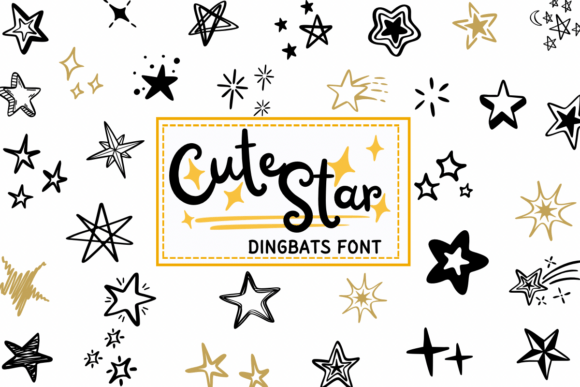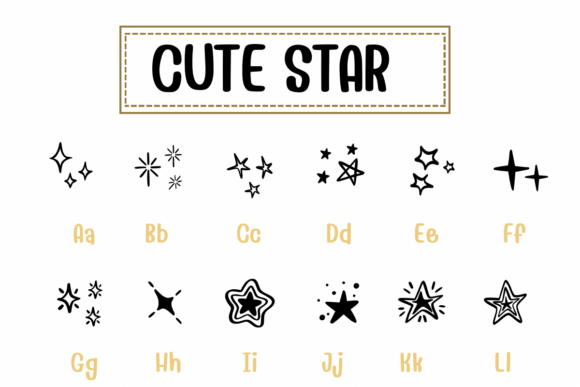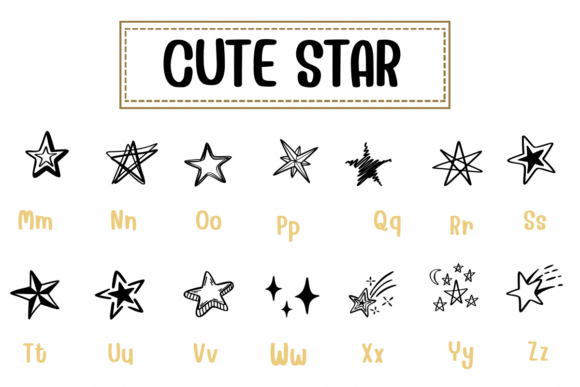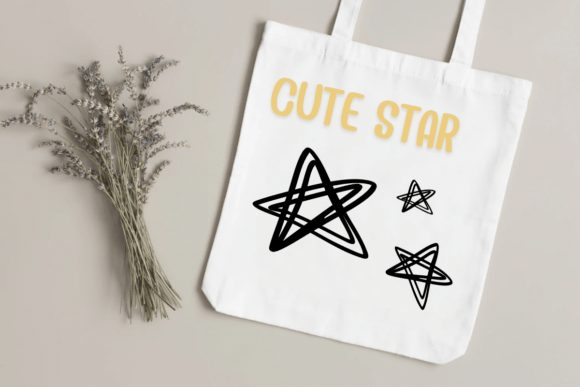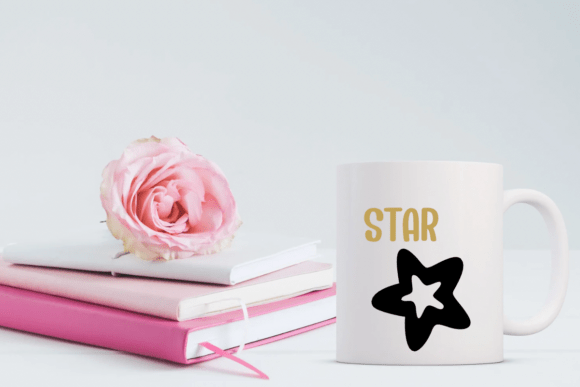
Cute Star Font
Cute Star is a dingbats font with a sketched style. This font can enhance your creative projects such as wedding invitations, DIY, crafts, decorations, logos, and many other creative ideas.